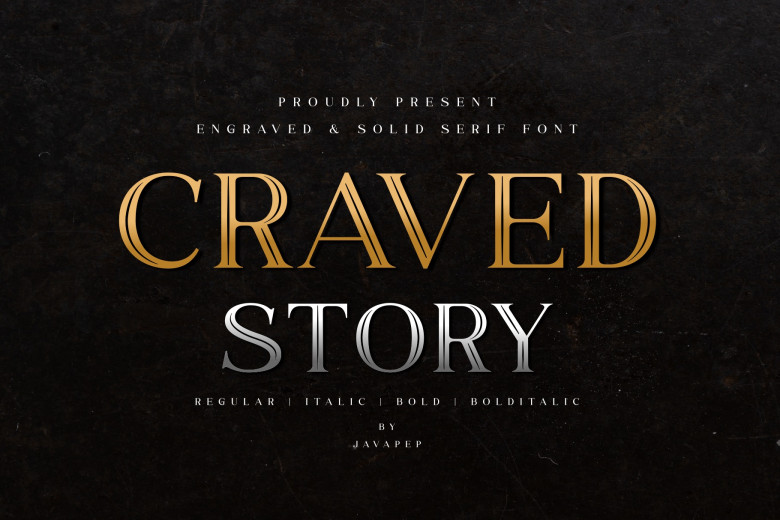
Craved Story Font
Craved story is an elegant serif family, each character of which is meticulously engraved to produce a stylish and refined appearance for your designs. Perfect for vintage-themed projects. There are both engraved styles and solid styles which you can mix for incredible results!
Craved Story Serif Font